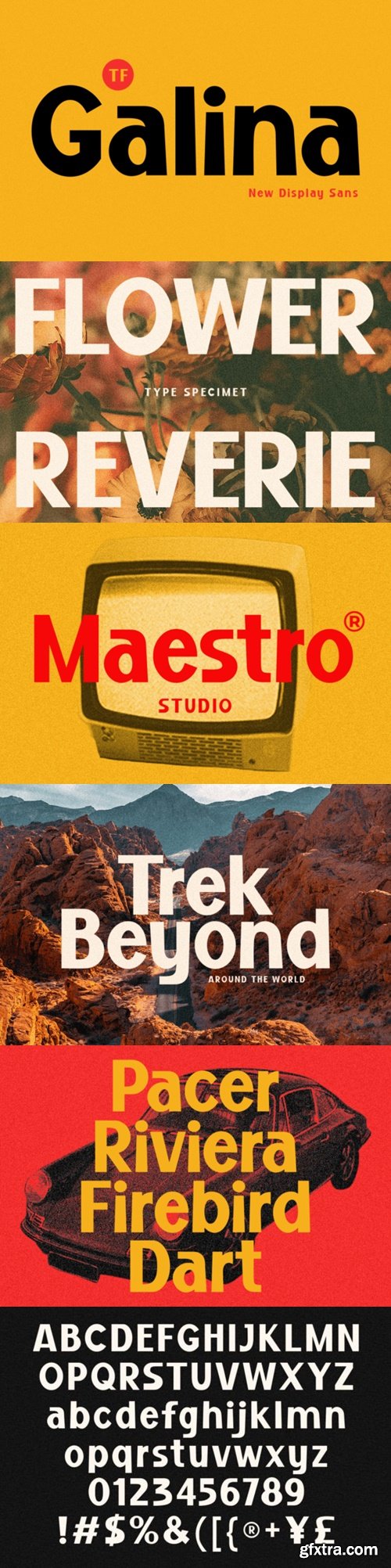
Galina is a captivating display sans font that effortlessly blends modernity with a touch of retro charm. With its clean and sleek letterforms, this font exudes a contemporary elegance, while subtle vintage influences add character and warmth.